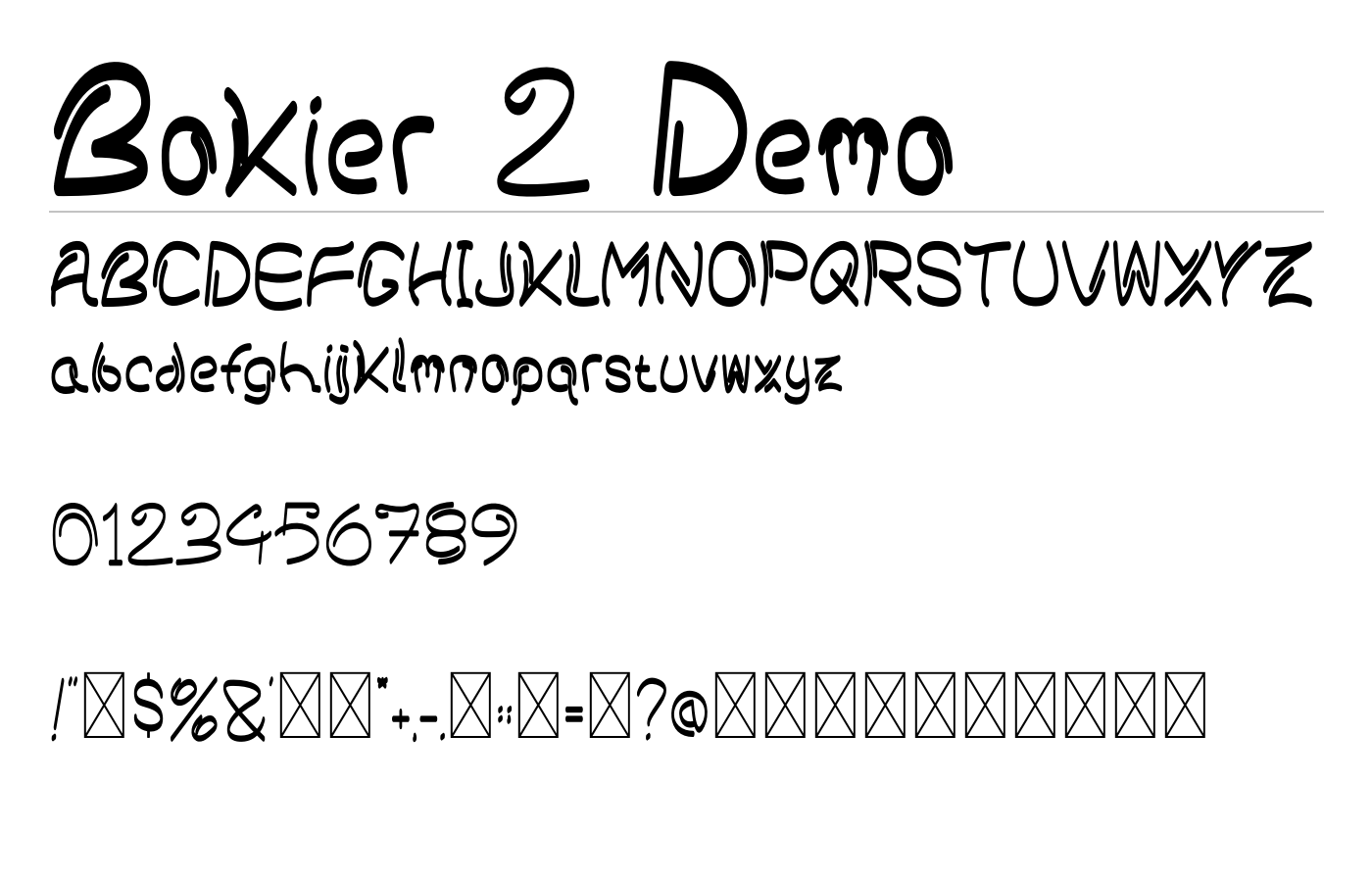
Bokier 2 Demo is a playful, hand-drawn sans serif font characterized by uneven strokes and quirky letterforms that give it a casual, whimsical feel. Its irregular shapes and lively curves make it perfect for creative projects, informal branding, and children’s designs where a fun and approachable personality is desired. This font works best in headlines, posters, or logos where its unique style can stand out and grab attention.
| Font family | Bokier 2 Demo Font |
| Designer | MunlisType Design |